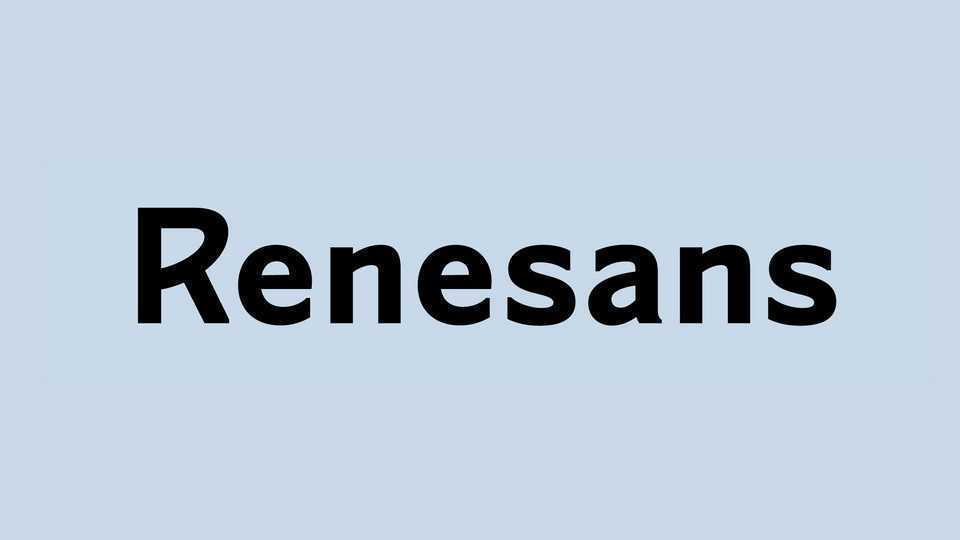
Download Renaissance font, a decorative sans serif typeface. Renaissance has a display character – suitable for headings, titles, cover and poster.
Designer: Borys Kosmynka